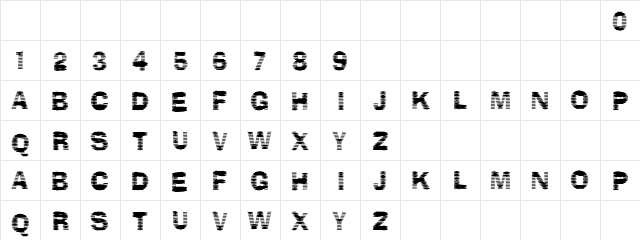
Stackz Regular
| Foundry | TBJ |
| Designer | TBJ |
Design Context for Stackz Typeface
Stackz is a composed and adaptable typeface that performs quietly and consistently across a wide range of design contexts.